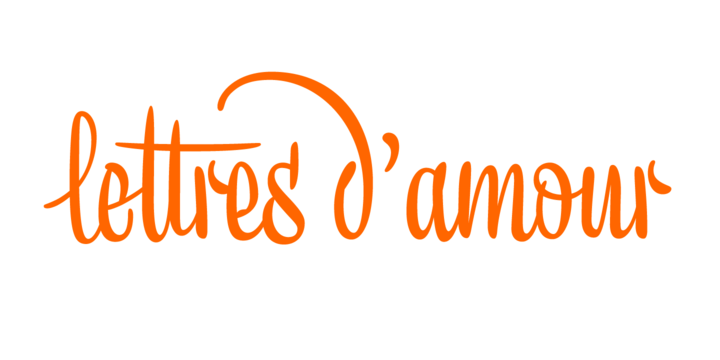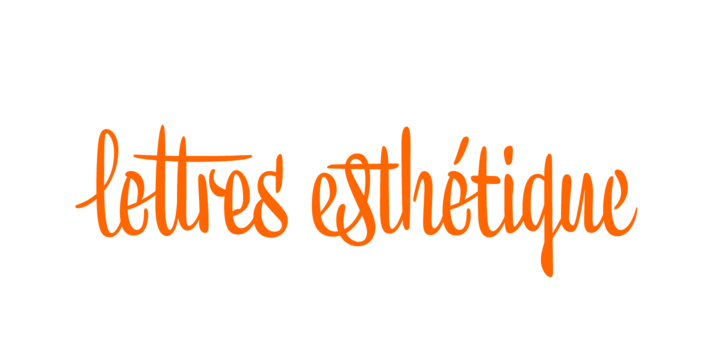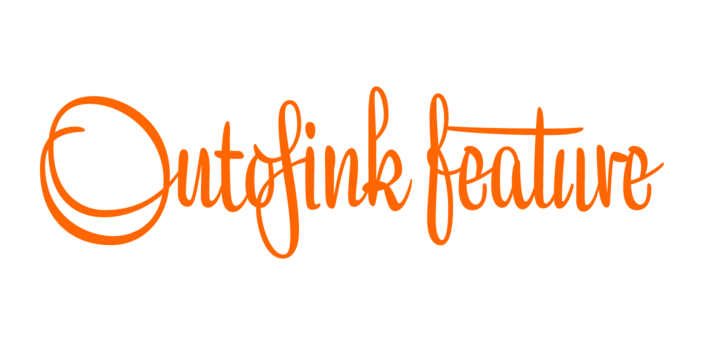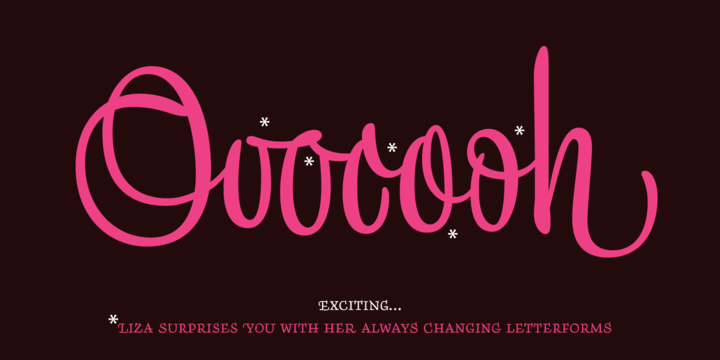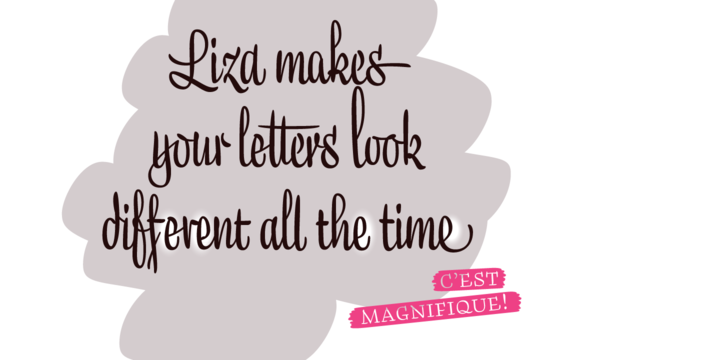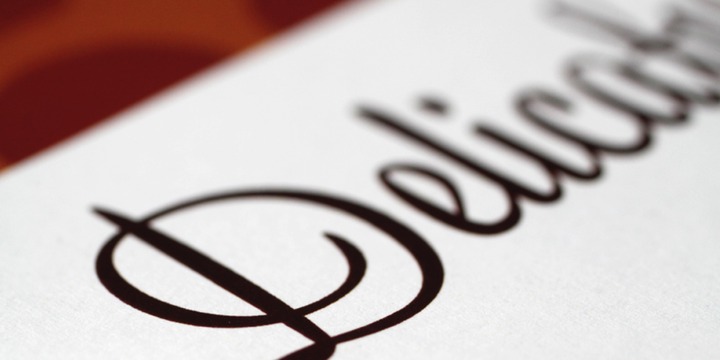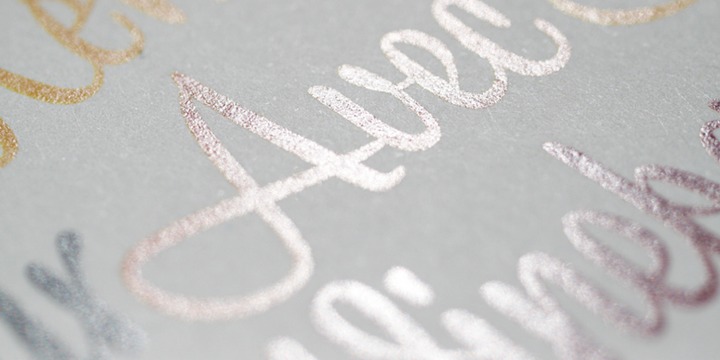
Liza Font Family
Liza Font Family – 5 Fonts
Lettres d’amour! Flirting, fashionable, provocative, emotional, casual, moderate, extremely sensible & beautiful – Liza Pro covers it all. Liza Pro, Underware’s dear creation, is a live-script typeface.
Thanks to its extremely intelligent OpenType architecture, she approaches human hand lettering as closely as technically possible. Liza Pro deeply analyzes the text. Out of a stock of 4000 hand crafted characters, Liza creates the most optimal combination. All of this works automatically. All you need to do is start typing your lettres d’amour, and Liza makes the text always look different. She gives your creative piece the impression par excellence. Erotique mais intelligent. She is as clever as we could imagine.
Liza Std
Liza Text Pro
Liza Display Pro
Liza Caps Pro
Liza Ornaments Pro